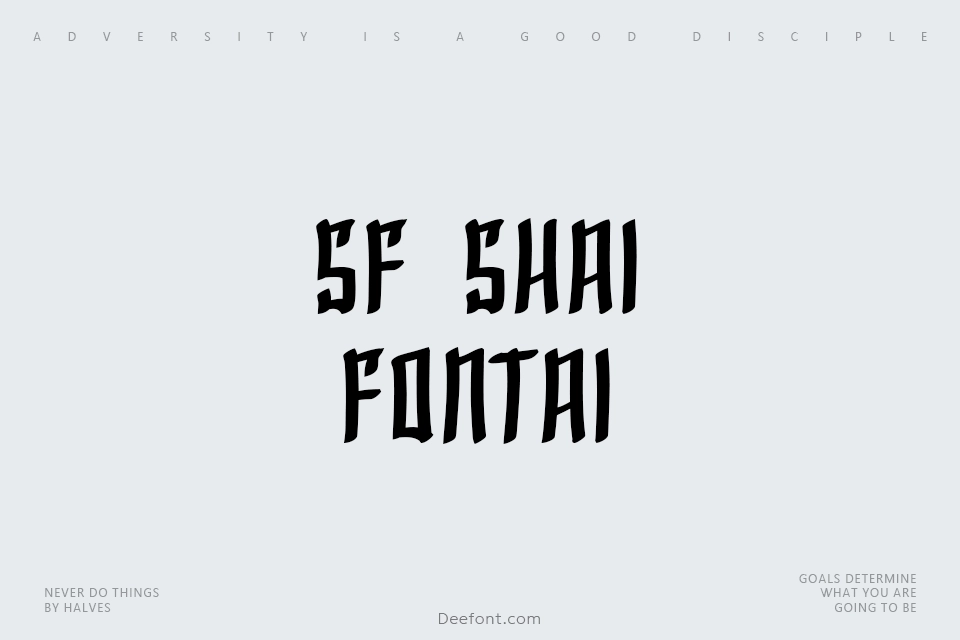
SF Shai Fontai Font
SF Shai Fontai is a distinctive foreign-look typeface that merges oriental and gothic design elements, featuring semi-light weight and extra-condensed width. Drawing inspiration from traditional Chinese calligraphy, this font presents a modern distressed aesthetic that exudes enigmatic charm. With its unique blend of vintage appeal and contemporary flair, SF Shai Fontai proves exceptionally suitable for branding, creative art pieces, and editorial works seeking cultural richness and artistic depth. The font contains 250 defined characters, offering designers versatility for projects requiring an exotic touch.